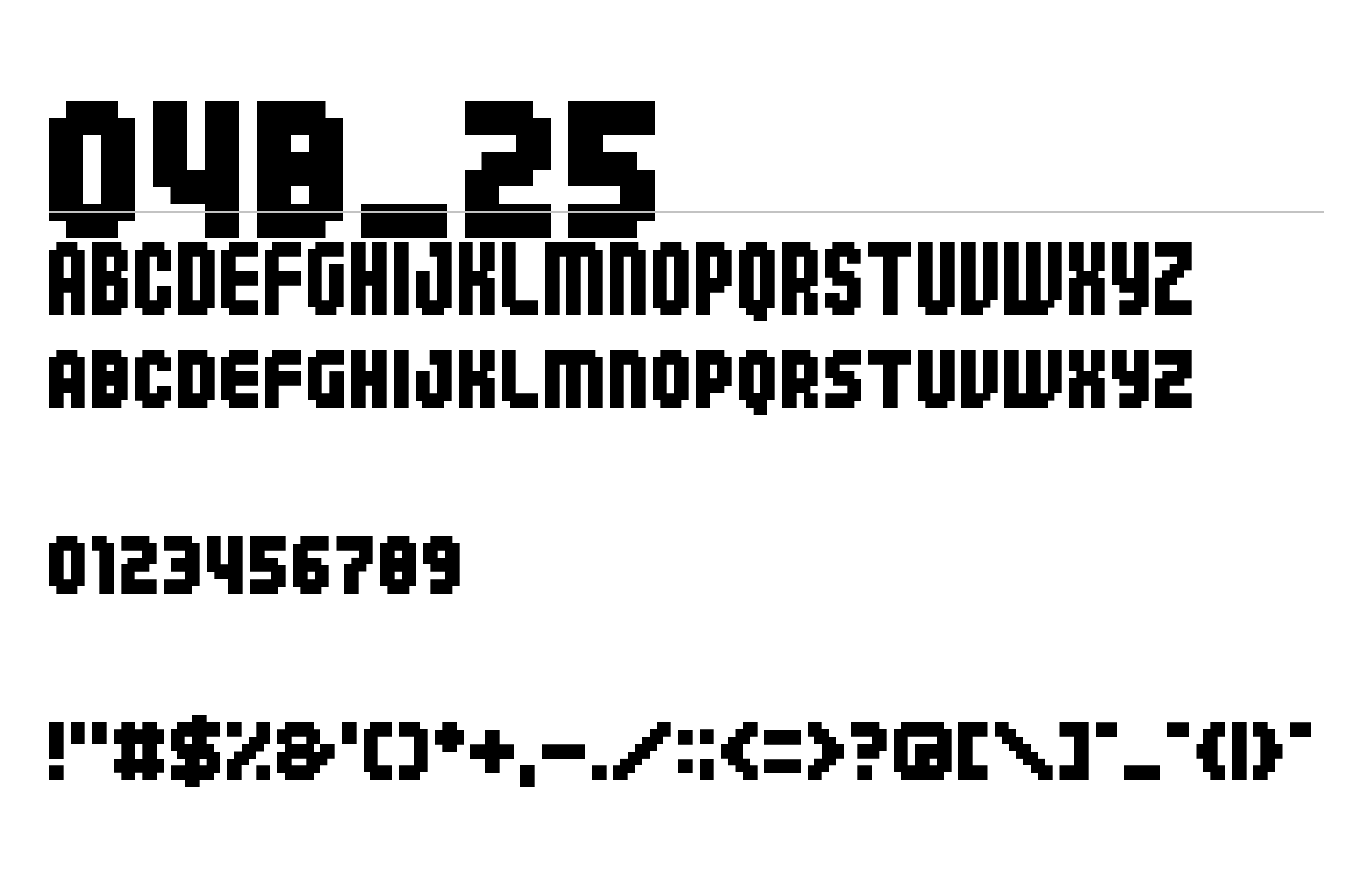
04b_25 is a bold, condensed sans-serif font with a pixelated, blocky design that evokes early digital and arcade aesthetics. Its uniform stroke weight and squared edges give it a retro, tech-inspired feel, making it ideal for use in video game graphics, headlines, or any design seeking a nostalgic or futuristic vibe. This font works best in digital or display contexts where a strong, unmistakable presence is needed.
04b_25 Font